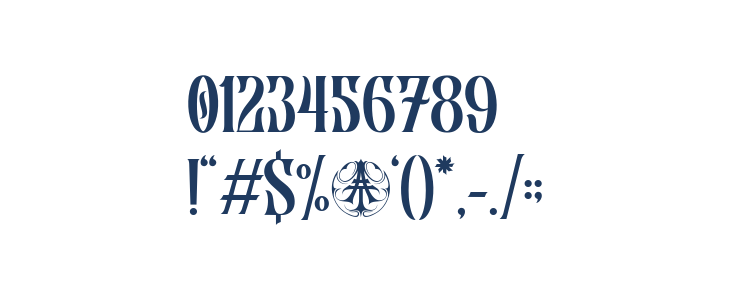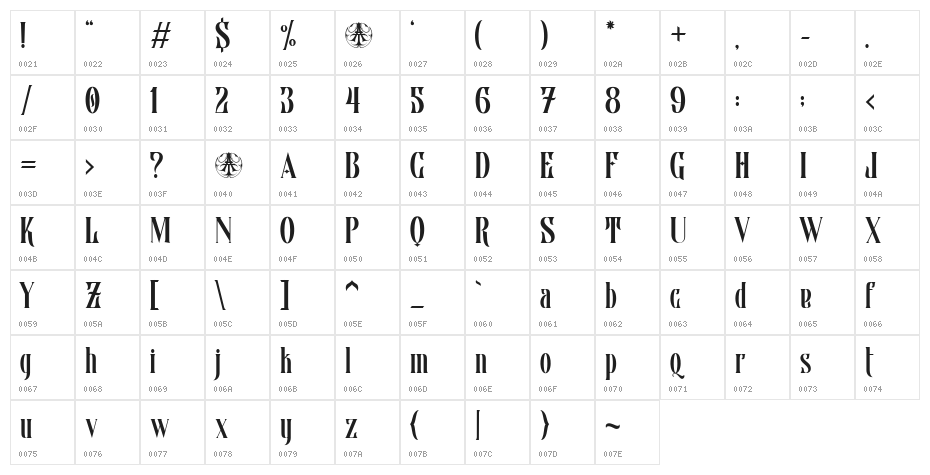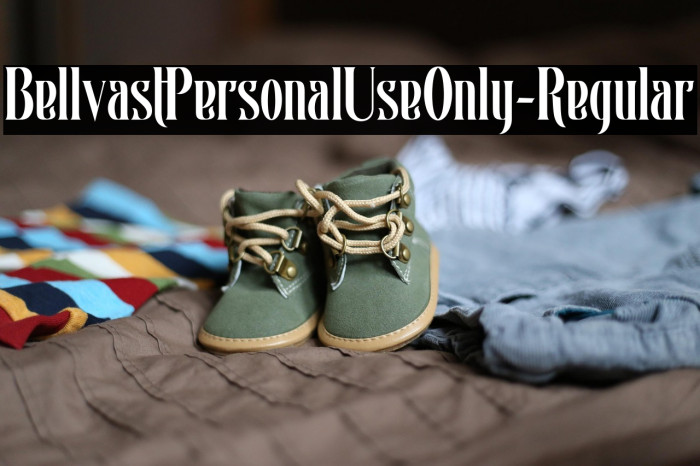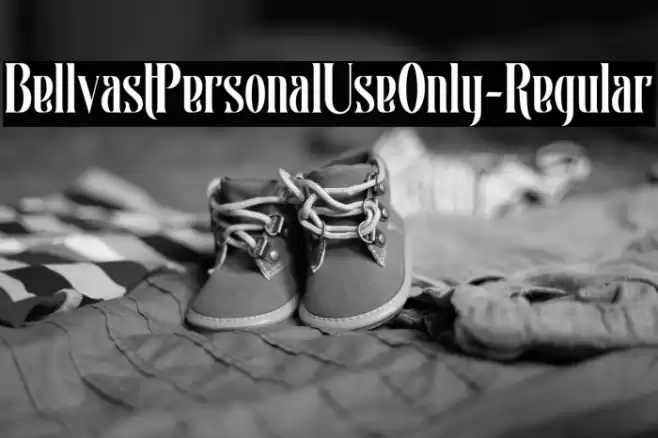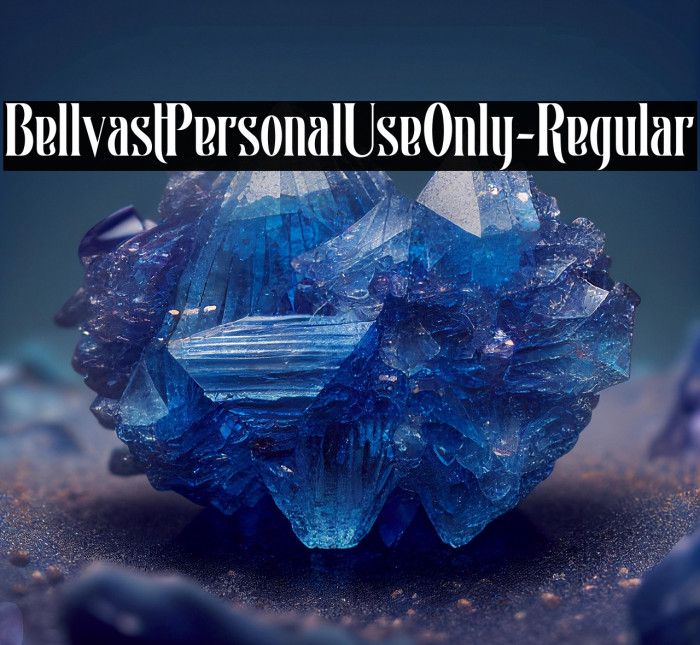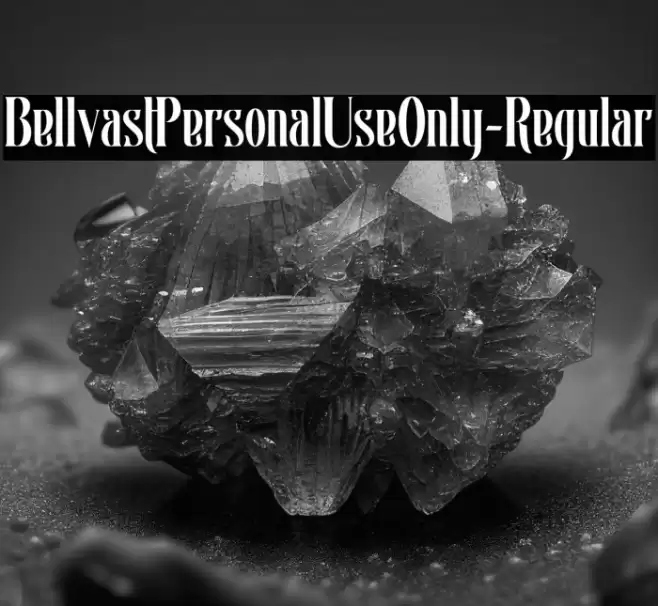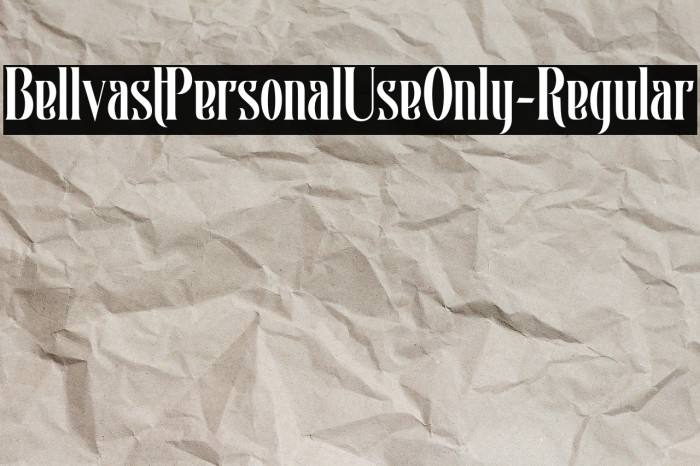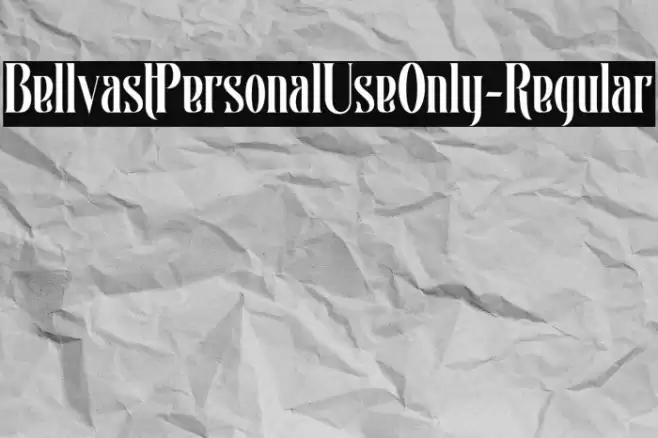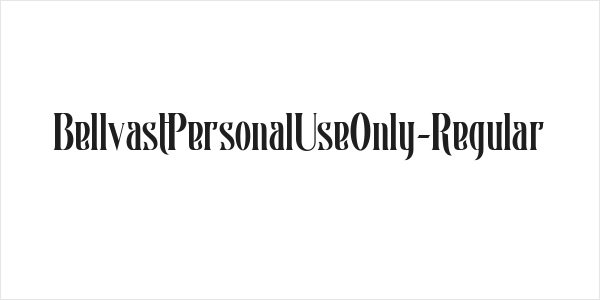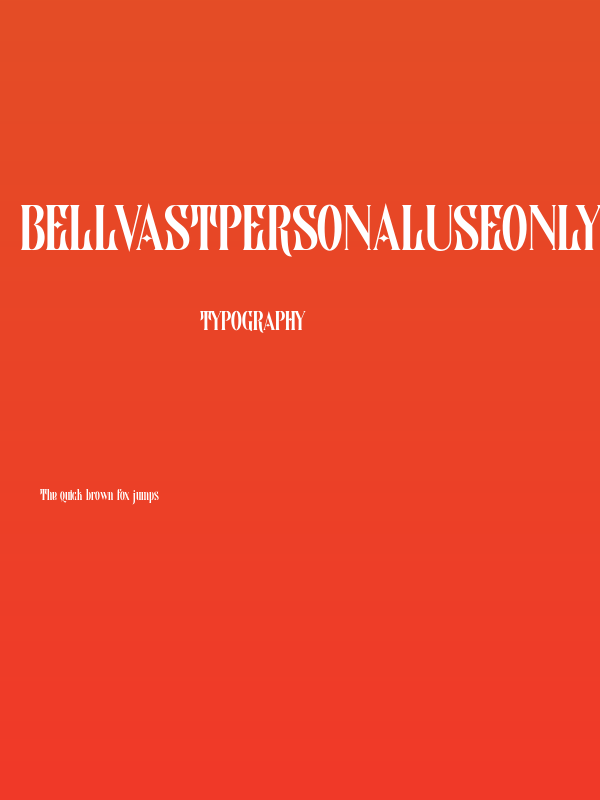
BellvastPersonalUseOnly-Regular Font
BellvastPersonalUseOnly-Regular Description
This font features a bold and dramatic style with high contrast between thick and thin strokes, giving it a striking and elegant appearance. The uppercase letters are adorned with unique decorative elements, adding a touch of sophistication and flair. The lowercase letters maintain a consistent style, complementing the uppercase with their own subtle embellishments. The numerals are distinct and maintain the same high contrast, ensuring readability while preserving the decorative theme. Special characters are creatively designed, enhancing the overall aesthetic appeal. This font is ideal for projects that require a strong visual impact and a sense of elegance.
| Proposed Projects | Ideal for branding, logo design, headlines, posters, and invitations where a dramatic and elegant touch is desired. |